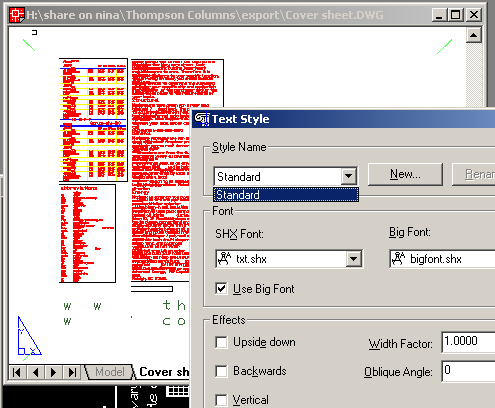
Converting Fonts to Autocad
I can't get my font translation to work.
Althoug I state the substitutions to fonts I wan't, When oppend in Autocad, all the non Arial fonts are standard font.
Thomas wrote:
The key is of course the font conversion table.
What Graphisoft should do is to let users set up a tab-delimited text file table (easy in Excel, or any text editor) with the required data and make Archicad read that instead of the XML one.
The XML format lets you do many things, but it's not easy to create without dedicated tools.
XML can be crated in any text editor. Simply by saving it with the extention .XML.
afpina wrote:
In this case, If I understand it rigth I'll have to have an Autocad licence to correctly convert to dxf or dwg?
No.
Now, obviously when someone in any kind of different activitie asks me for a dwg , and since I don't own a copy of autocad, I don't see myself spending hours, asking that person to make a template, and send it to me so maybe I can get my files right for him to see them.
That person SHOULD send you his average AutoCAD file, WITH the fonts (eTransmit in AutoCAD 2000 and newer, Pack and go before) if he wants to get anything like what he does. That is true even in AutoCAD-AutoCAD translation. Oh yes, there is such a thing!
Either archicad is dwg compatible (standalone) or is not. I need of course font-font conversion.
It is
Who uses which font (SHX or TTF) in which style, which pen for what layer and so on is exclusively local decision. If anybody expects you to follow a rule, he should tell you what that rule is, right?
Djordje wrote:
That person SHOULD send you his average AutoCAD file, WITH the fonts (eTransmit in AutoCAD 2000 and newer, Pack and go before) if he wants to get anything like what he does. That is true even in AutoCAD-AutoCAD translation. Oh yes, there is such a thing!
Let me throw some fuel on the fire, because this is a topic that I have never figured out to my satisfaction and I don't think I'm alone.
In my case, the structural engineer doesn't really draft - so he has no "average" (or any kind) dwg files of his own. He wants me to send him a usable dwg that he can read, check dimensions, annotate a bit, and print.
The problem I have had in every version through 8.1 is that when I publish as dwg, my carefully selected TrueType fonts seem to get mapped to something ugly, or spaced incorrectly, in the dwg. The Mr. Hand font, a proportional font, is mapped to a fixed-width Courier-style font. Two separate engineering firms plotted drawings with this ugly Courier look - which is how it appears in VoloView Express. Bringing the same dwg back into PM, the font shows up as Arial.
Arial seems to get mapped from PM to a sans-serif font that is pretty close to Arial, but is wider, so text doesn't fit inside boxes any longer. Special characters from Wingdings come across incorrectly - one AC doc uses codes 131, 132 and 133 (the numbers 3, 4 and 5 inside circles); in the displayed dwg, these all appear as the code 63 symbol (a right hand holding a pen).
The aesthetic problem bugs me (a nice sheet now looks like shit) - but the real problem is that any special characters that I had used as part of the TrueType fonts now appear as strange garbage in AutoCAD (at least as shown by the free VoloView Express viewer). The resulting dwg is unusable without the AutoCAD user somehow replacing each of these goofy symbols with the AutoCAD-world-correct one. He may or may not catch each such screw up, thereby introducing inaccuracies or errors in the document.
In April 2002, the good Texans Steve Williams and Eric Batte generously tried to help me out with this on the old forum. Unfortunately, it didn't get me past the above problems.
So, could someone explain for us AC-savy but AutoCAD-ignorant types:
1. Is it not possible for AutoCAD to use TrueType fonts?
2. If it is possible, why don't our AC fonts go across as we have used them? If it is not possible, then how will it ever be possible to truly exchange documents via dwg?
Karl wrote:
1. Is it not possible for AutoCAD to use TrueType fonts?
Publishing DWF, reading into a PMK and saving as dwg WORKS, HOWEVER the layout gets translated into modelspace, so measurements are from paper, and
instead of 3'-0 it will be dimensioned as say: 1 1/8"
So if somebody wants a correct print, he/she is stuck with an out of scale flattened model space layout.
If somebody wants to edit (or measure dimensions of) the drawings, he/she is stuck with ugly text.